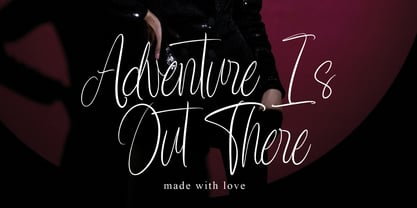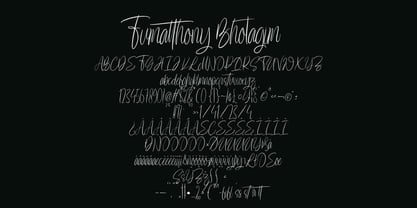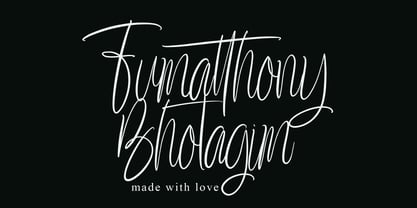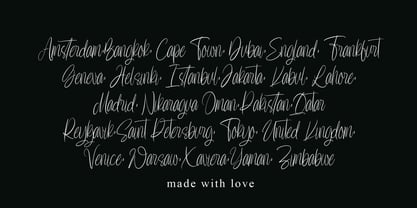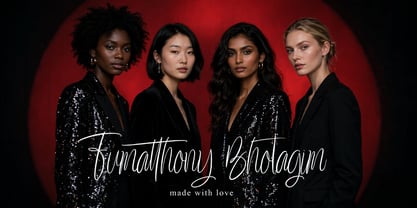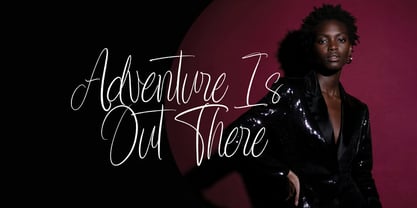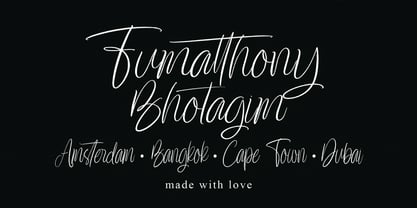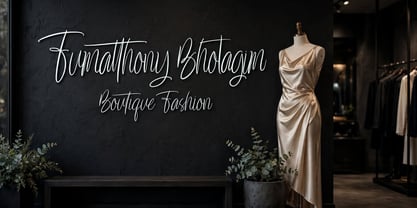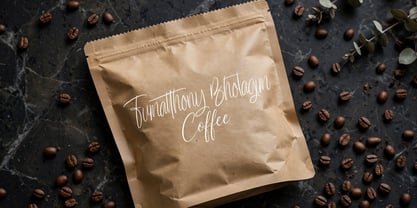
Fumatthony Bhotagim
The Fumatthony Bhotagim Font Family was designed by Dhoni Trihatmoko and published by Ayska. Fumatthony Bhotagim contains 1 styles. More about this family
Step into the captivating world of Fumatthony Bhotagim, a font that beautifully marries sleek contemporary typeface finesse with the endearing appeal of handwritten script. As an unexpected gem of creative power, it pulsates with a magnetism that is hard to resist. Immerse your blog with the dynamic allure of Fumatthony Bhotagim or let its hypnotizing charm amplify the impact of your printed invites. Breathe a fresh lease of life into your poetic expressions with this singular font. Venture into the enticing charm of Fumatthony Bhotagim, a welcome addition to up the wow-factor of your photo collections or to sprinkle a unique element to your home décor. This unusual font houses the powerful ability to transform the mundane to marvellous; to weave captivating appeal into every digital detail. Let Fumatthony Bhotagim be your beacon in the expansive universe of art and design, guiding you towards a vast sea of exceptional creativity. Embark on this artistic voyage with Fumatthony Bhotagim, and witness your imaginative ideas bloom into stunning digital masterpieces.